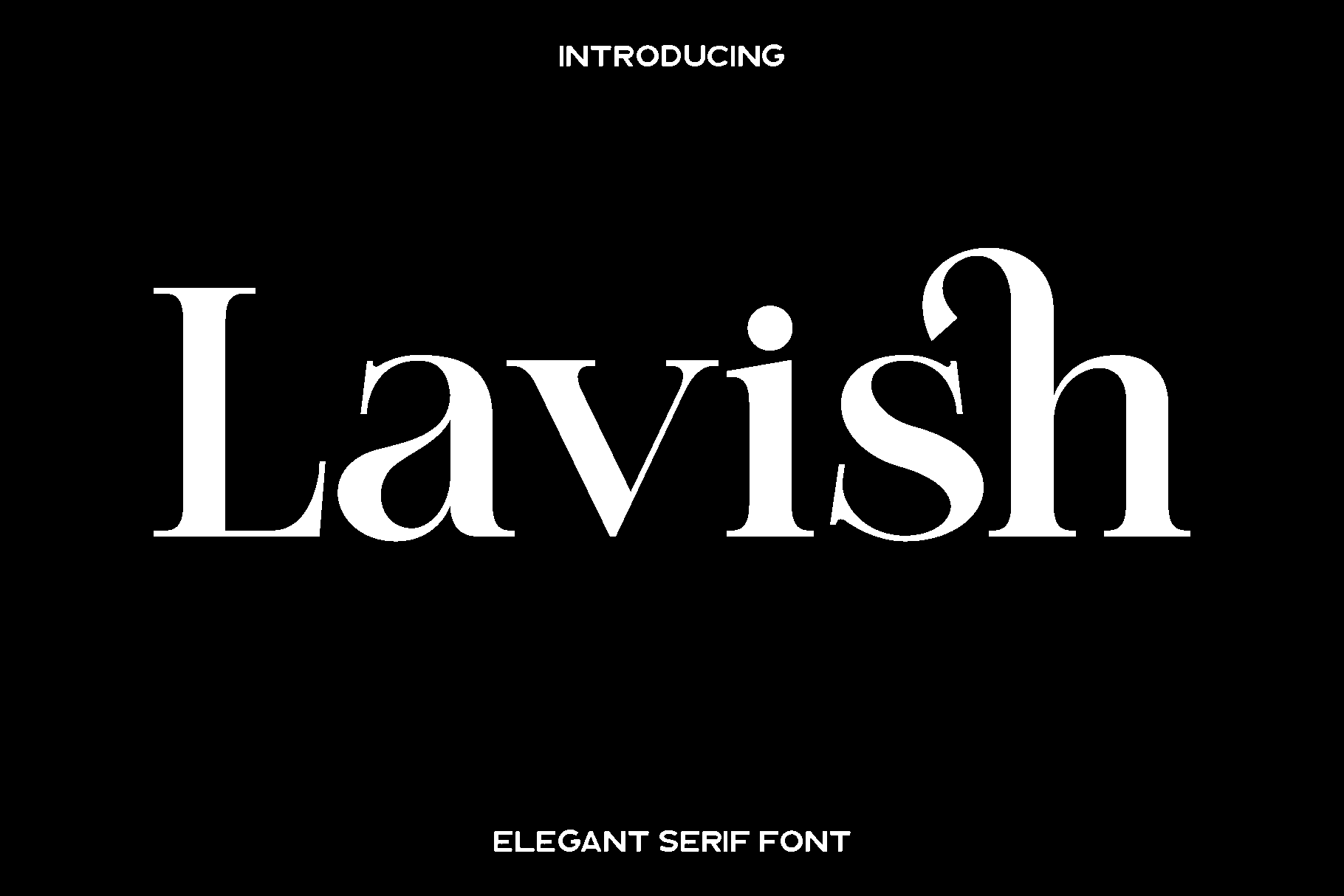
Lavish - Classy Serif Font
Lavish is a refined serif font created to bring timeless elegance and luxurious charm to every design. Inspired by high end branding and classic editorial style, Lavish features beautifully sculpted letterforms with graceful curves and balanced proportions. Each character is crafted to appear polished and sophisticated, giving your designs a sense of prestige and visual harmony. This font is perfect for designers who want to express elegance with clarity and style.
Lavish shines in a wide range of creative applications. It is ideal for branding projects, premium logos, social media graphics, wedding stationery, editorial layouts, invitations, photography watermarks, product packaging, advertisements, and more. Its impressive legibility ensures it performs beautifully in both large headlines and smaller details, making it a versatile choice for modern and upscale design work.
The luxurious personality of Lavish instantly elevates the visual tone of your projects. Whether you are building a refined brand identity or crafting an elegant announcement, Lavish brings class, beauty, and professional sophistication to every composition. Its timeless aesthetic makes it an essential addition to any designer’s serif collection.
Lavish Serif Font Features:
• Standard characters
• Numbers and punctuation
• Accented characters for Western Europe